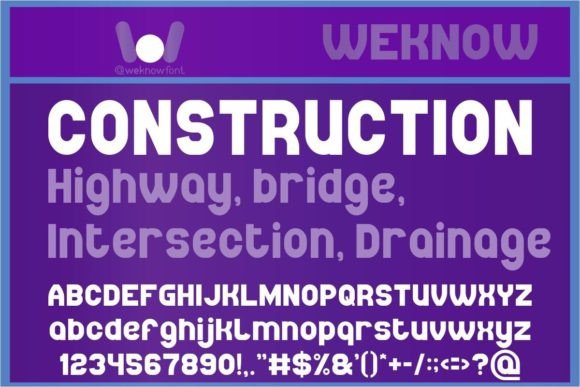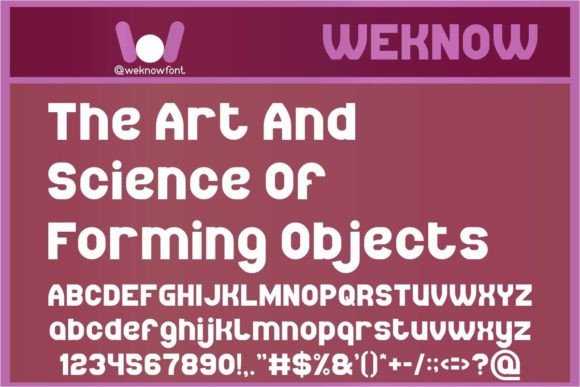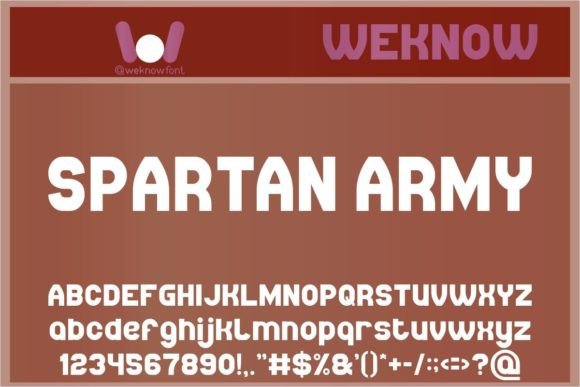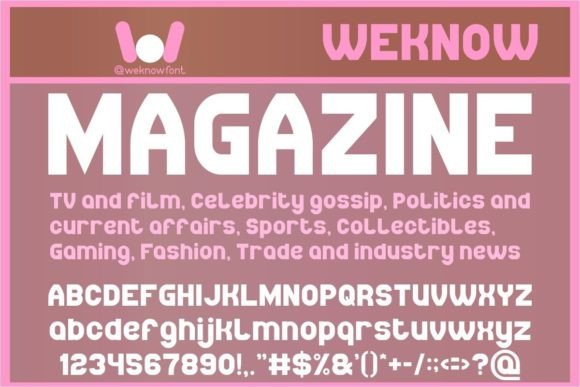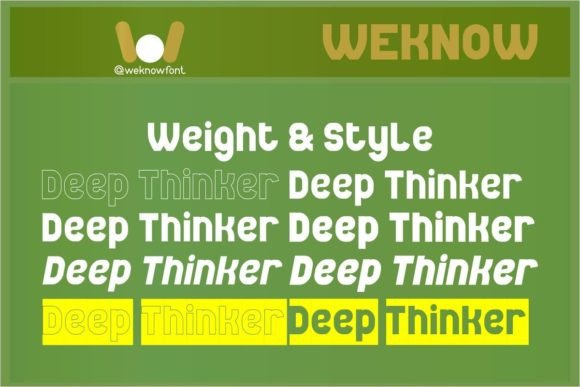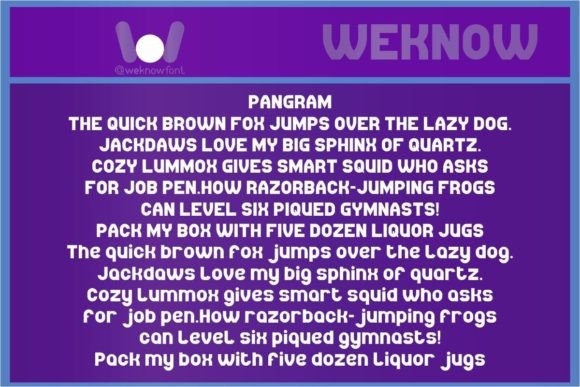
Unveiling Deep Thinker Font: Elevate Your Designs with Elegance and Authority
In the realm of typography, a font can make or break the visual identity of a brand, product, or creative project. Introducing Deep Thinker, a sans-serif font that masterfully blends bold, smooth, and powerful strokes to create an elegant and commanding presence. This friendly display font is poised to revolutionize the way designers and crafters approach their work, offering a versatile and sophisticated solution for various design needs.
A Font that Embodies Strength and Subtlety
Deep Thinker is more than just a font – it’s an experience. Its distinct character effortlessly oscillates between strength and subtlety, making it an ideal choice for a wide range of design applications. Whether you’re crafting logos, headlines, or brand identities, this font adds an extra layer of sophistication and authority, instantly elevating your creations.
A Favorite among Creative Professionals
Fashionistas in the apparel industry will find Deep Thinker’s unique character captivating, as it brings a touch of elegance and refinement to clothing labels, advertisements, and editorials. Music, movie, and game enthusiasts will appreciate the dynamic feel it brings to album covers, movie posters, and game packaging. The font’s balance between playful and professional makes it an excellent choice for creating immersive magazine, book, and comic designs.
Unlock Endless Creative Possibilities
Deep Thinker’s adaptability and aesthetic appeal make it a favorite among designers and crafters looking to enhance their visual content. Use it to breathe new life into your YouTube and Instagram visuals, creating engaging content that resonates with your audience. With Deep Thinker, the possibilities are endless – from crafting attention-grabbing headlines to designing stunning brand identities.
Crafted to Inspire
Deep Thinker is more than just a font – it’s a creative catalyst. Its elegant and commanding presence is designed to inspire, empowering you to maximize your design potential. Whether you’re a seasoned designer or a crafty enthusiast, this font will help you shape your website into a creative masterpiece that leaves a lasting impression.
Key Features of Deep Thinker Font
- Bold, smooth, and powerful strokes: Creating a unique and commanding presence.
- Elegant and sophisticated: Adding a touch of refinement to various design applications.
- Versatile and adaptable: Suitable for logos, headlines, brand identities, and more.
- Balance between playful and professional: Ideal for creating immersive designs.
Applications of Deep Thinker Font
- Logos and brand identities: Elevate your brand with a sophisticated and commanding presence.
- Headlines and titles: Craft attention-grabbing headlines that leave a lasting impression.
- Magazine, book, and comic designs: Create immersive and engaging designs that captivate your audience.
- YouTube and Instagram visuals: Enhance your social media content with a touch of elegance and refinement.
- Apparel and fashion design: Add a touch of sophistication to clothing labels and advertisements.
- Music, movie, and game design: Bring a dynamic feel to album covers, movie posters, and game packaging.
Deep Thinker font is a game-changer for designers and crafters looking to elevate their creative projects. Its unique blend of bold, smooth, and powerful strokes makes it an ideal choice for various design applications. With its adaptability, aesthetic appeal, and elegant presence, Deep Thinker is poised to become a favorite among creative professionals. Unlock your design potential with Deep Thinker and shape your website into a creative masterpiece that leaves a lasting impression.